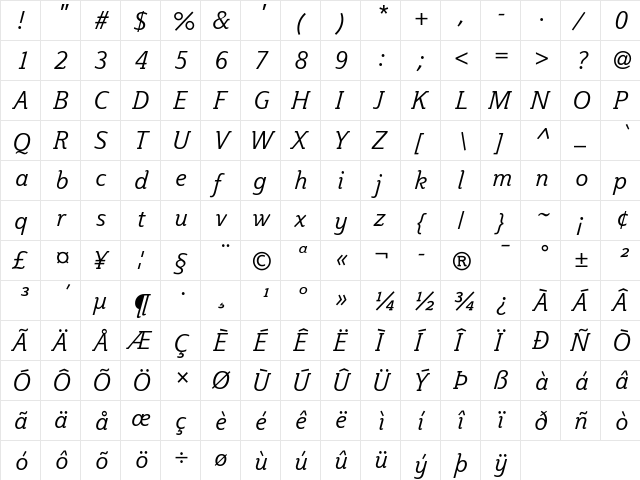
Plume DaMa Italic
| Foundry | Dalton Maag Ltd |
| Designer | Dalton Maag Ltd |
Design Context for Plume DaMa Typeface
Plume DaMa offers clean, dependable letterforms without strong stylistic allegiance, making it a practical choice for designers who need flexibility. The slanted form adds forward momentum and visual energy.